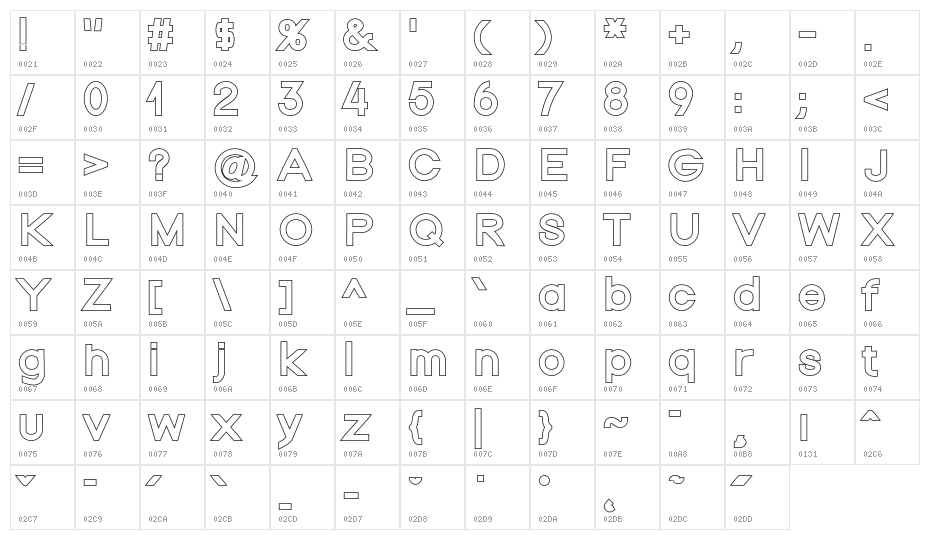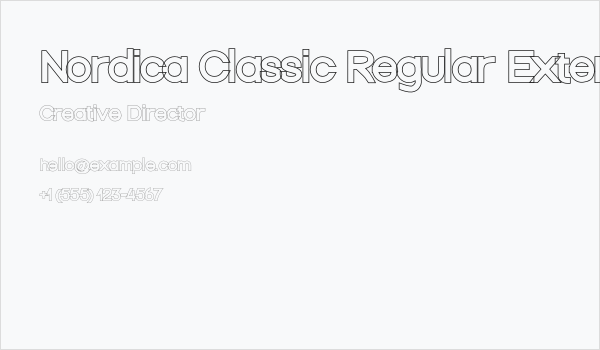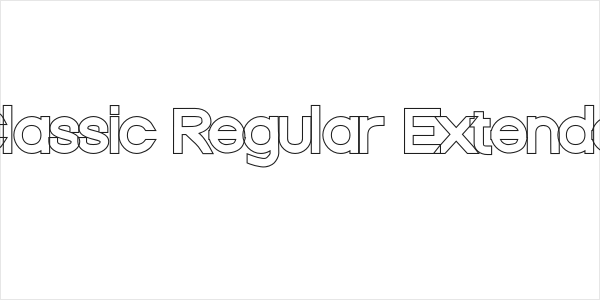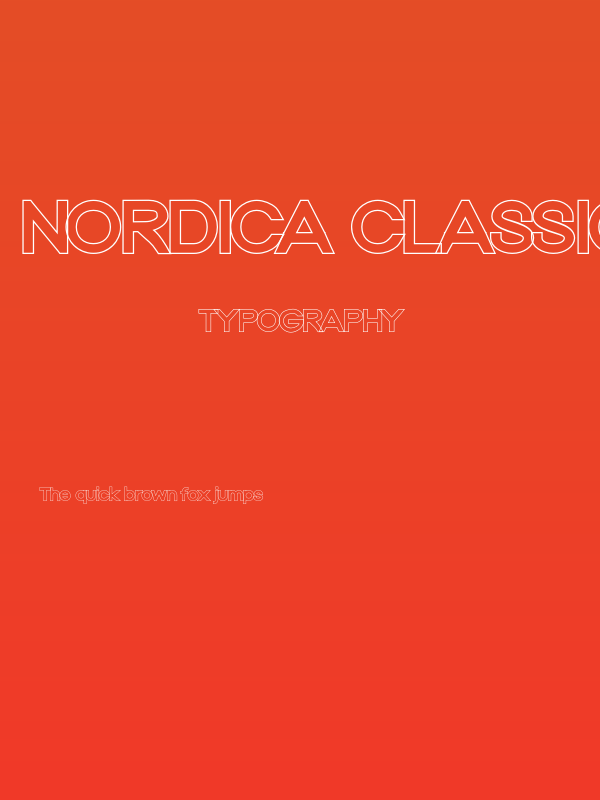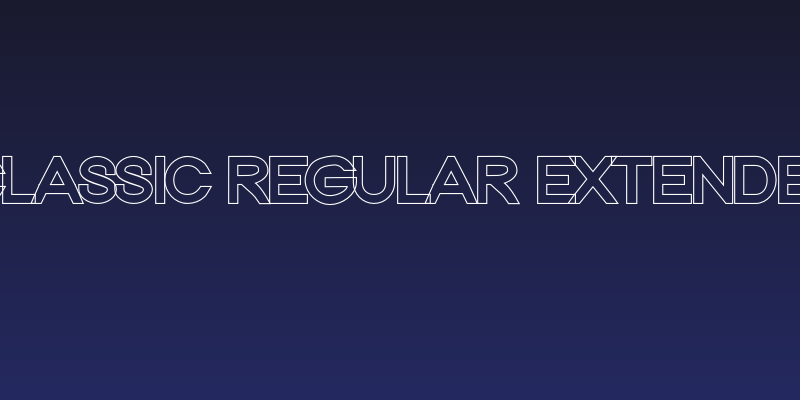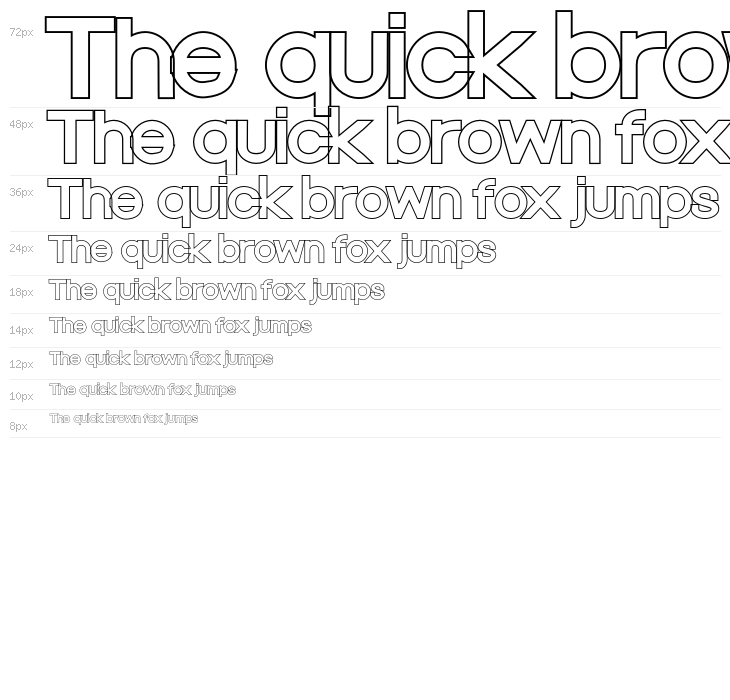
Nordica Classic Regular Extended Outline Font
Nordica Classic Regular Extended Outline Description
This font features a clean, geometric sans-serif style with an outline design. The characters are well-proportioned and maintain a consistent stroke width throughout, giving it a modern and minimalist appearance. The uppercase and lowercase letters are designed with a uniform height, enhancing readability and visual balance. The numerals and special characters follow the same design principles, ensuring a cohesive look across all elements. The outline effect adds a unique touch, making it suitable for creative and eye-catching designs.
| Proposed Projects | Ideal for branding, posters, headlines, and digital media where a modern and distinctive look is desired. |